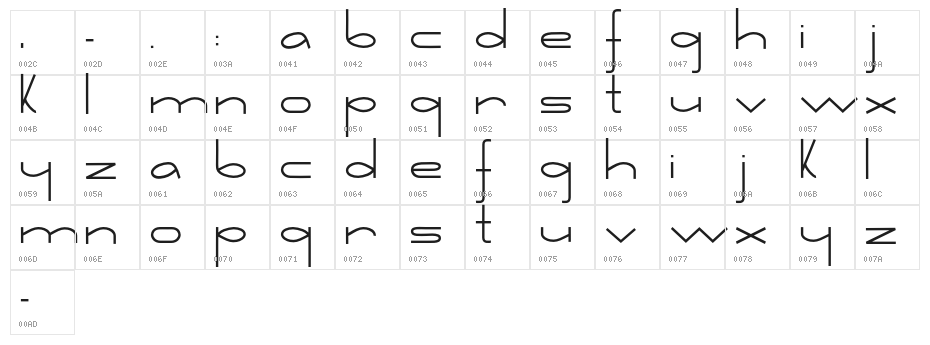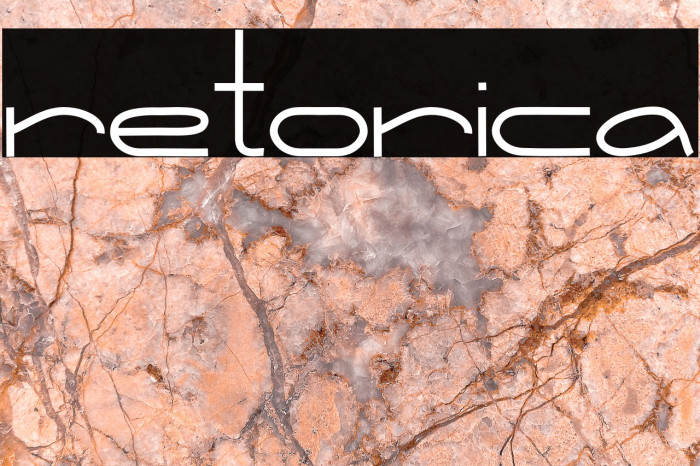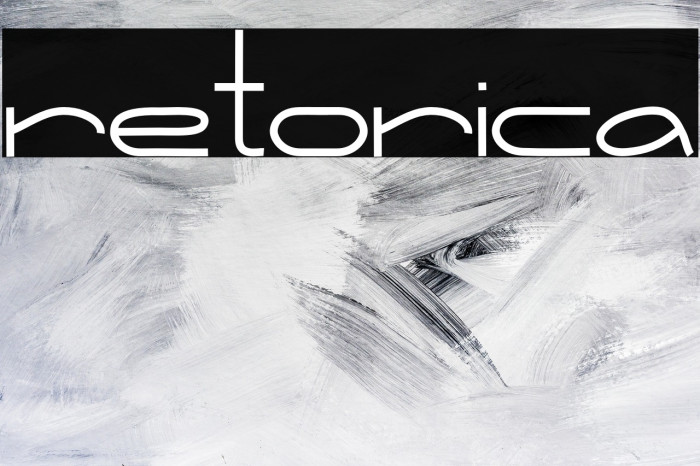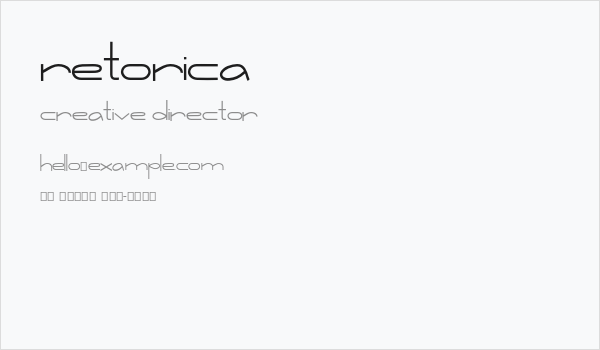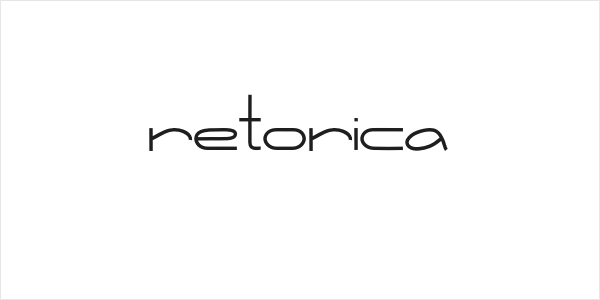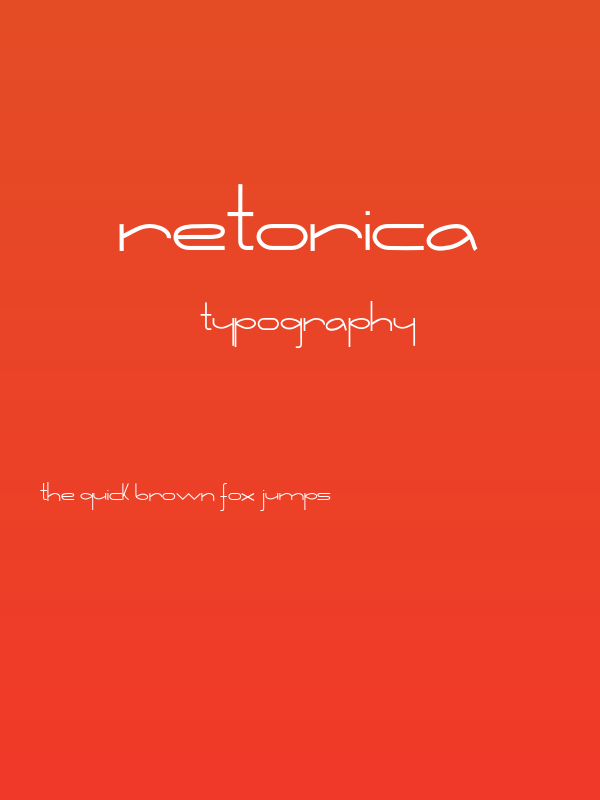
Retorica Font
Retorica Description
This font features a modern and minimalist design with thin, elongated strokes and a geometric structure. The characters are sleek and streamlined, with a consistent line weight that gives it a clean and sophisticated appearance. The lowercase letters have a unique style, with some characters featuring distinctive curves and angles that add a touch of elegance. The uppercase letters maintain a similar aesthetic, ensuring uniformity across the typeface. The font's overall look is contemporary, making it suitable for a variety of design applications.
| Use Case | Logos, Headlines, Digital media |
| Proposed Projects | Ideal for modern branding, tech-related designs, minimalist posters, and digital media. |